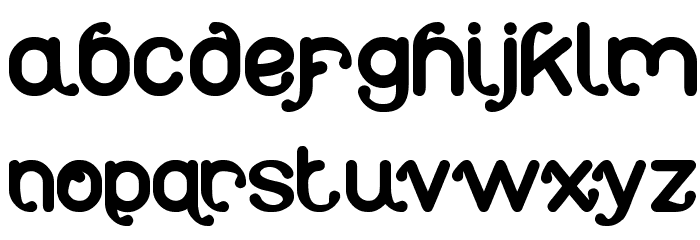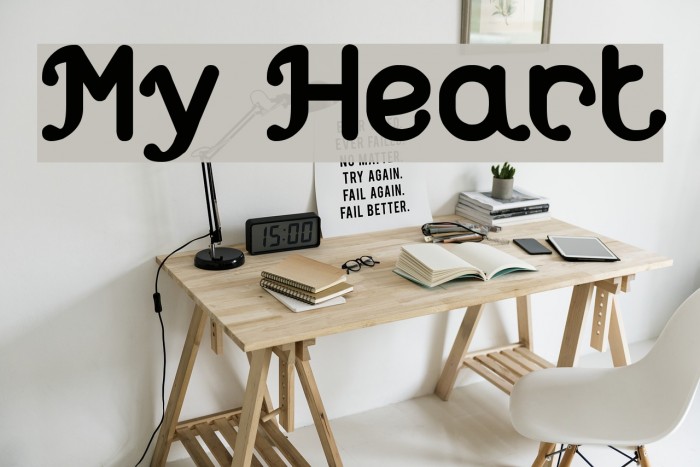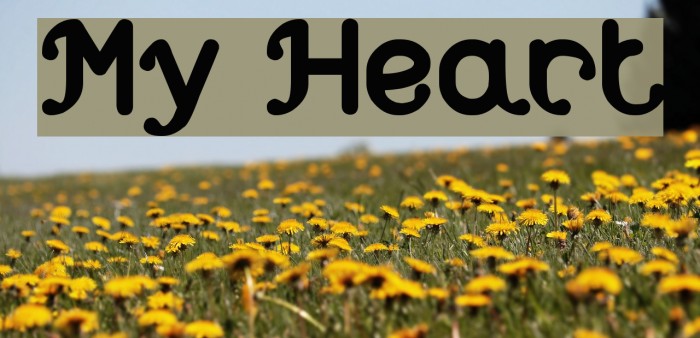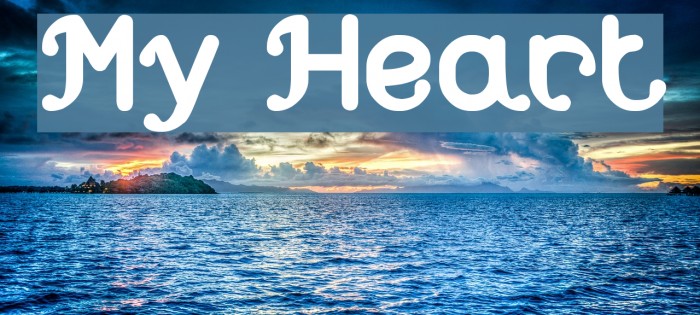
My Heart Font
This font features a playful and whimsical design with rounded edges and unique, decorative elements on each character. The uppercase letters have a bold presence with intricate curls and loops that add a touch of elegance and creativity. The lowercase letters maintain the same playful style, offering a consistent look throughout. The numbers and special characters are designed to match the overall aesthetic, making them suitable for various creative projects. This font is ideal for adding a fun and artistic flair to any design.
A playful and whimsical font with decorative curls and loops.
- Proposed Projects: Perfect for children's books, playful branding, greeting cards, and creative posters.
- Overall Style: Playful, Whimsical, Decorative
- Use Case: Headlines, Logos, Creative projects